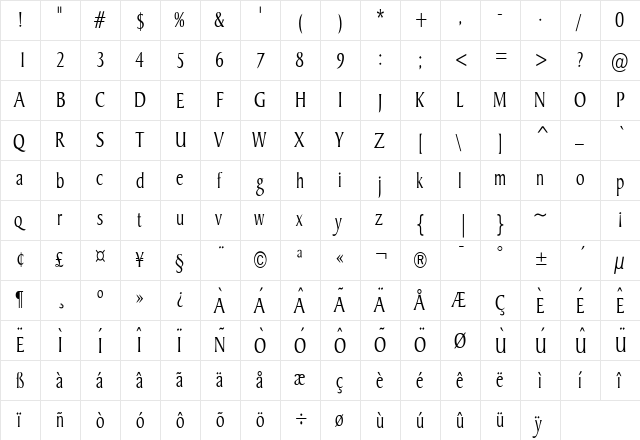
Barrett Thin Normal
Design Context for Barrett Thin Typeface
Barrett Thin is a composed and adaptable typeface that performs quietly and consistently across a wide range of design contexts. Its slender proportions lend an understated elegance to any composition.